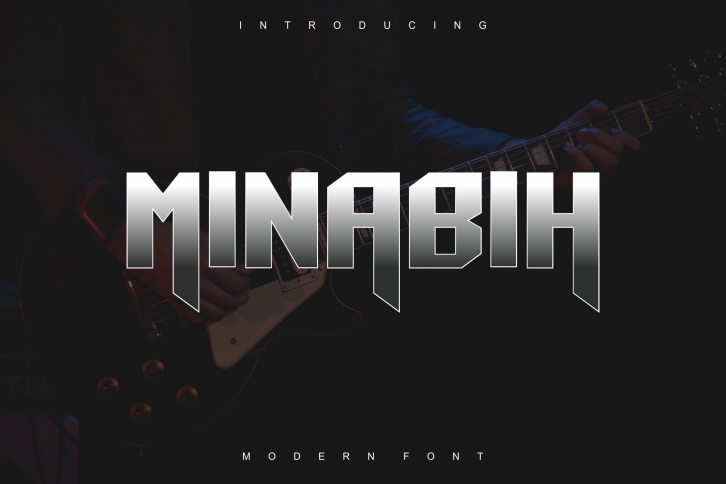
Minabih is a modern, bold, and authentic sans serif font suitable for any branding project like logo, t-shirt printing, export, and many more. It looks outstanding in a wide range of contexts.